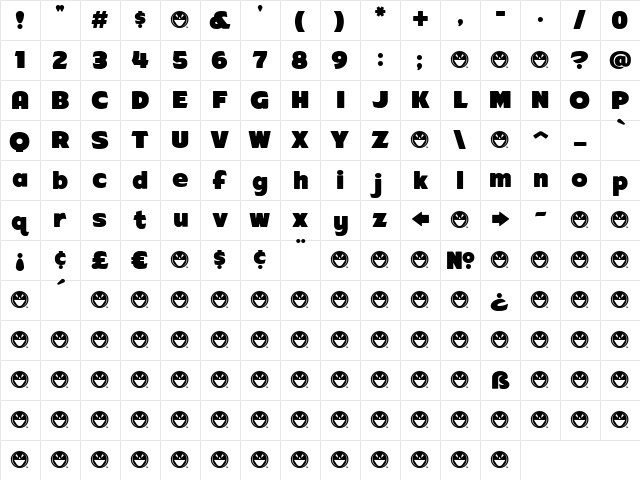
ARB-218 Big Blunt MAR-50 Regular
Design Context for ARB-218 Big Blunt MAR-50 Typeface
ARB-218 Big Blunt MAR-50 is a composed and adaptable typeface that performs quietly and consistently across a wide range of design contexts.
Pro Tip: Use ARB-218 Big Blunt MAR-50 in both headline and body roles to test its range before committing to a single application.